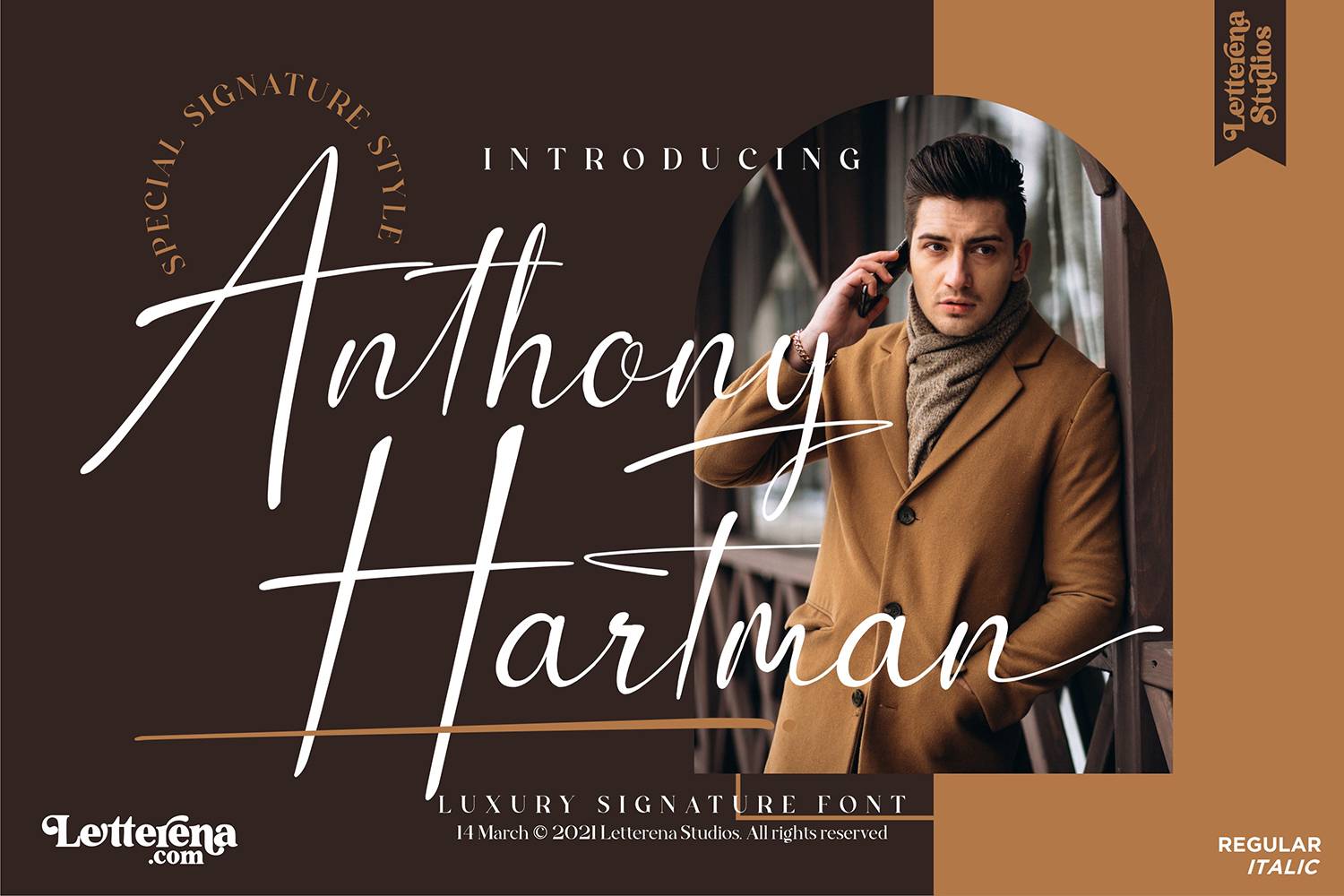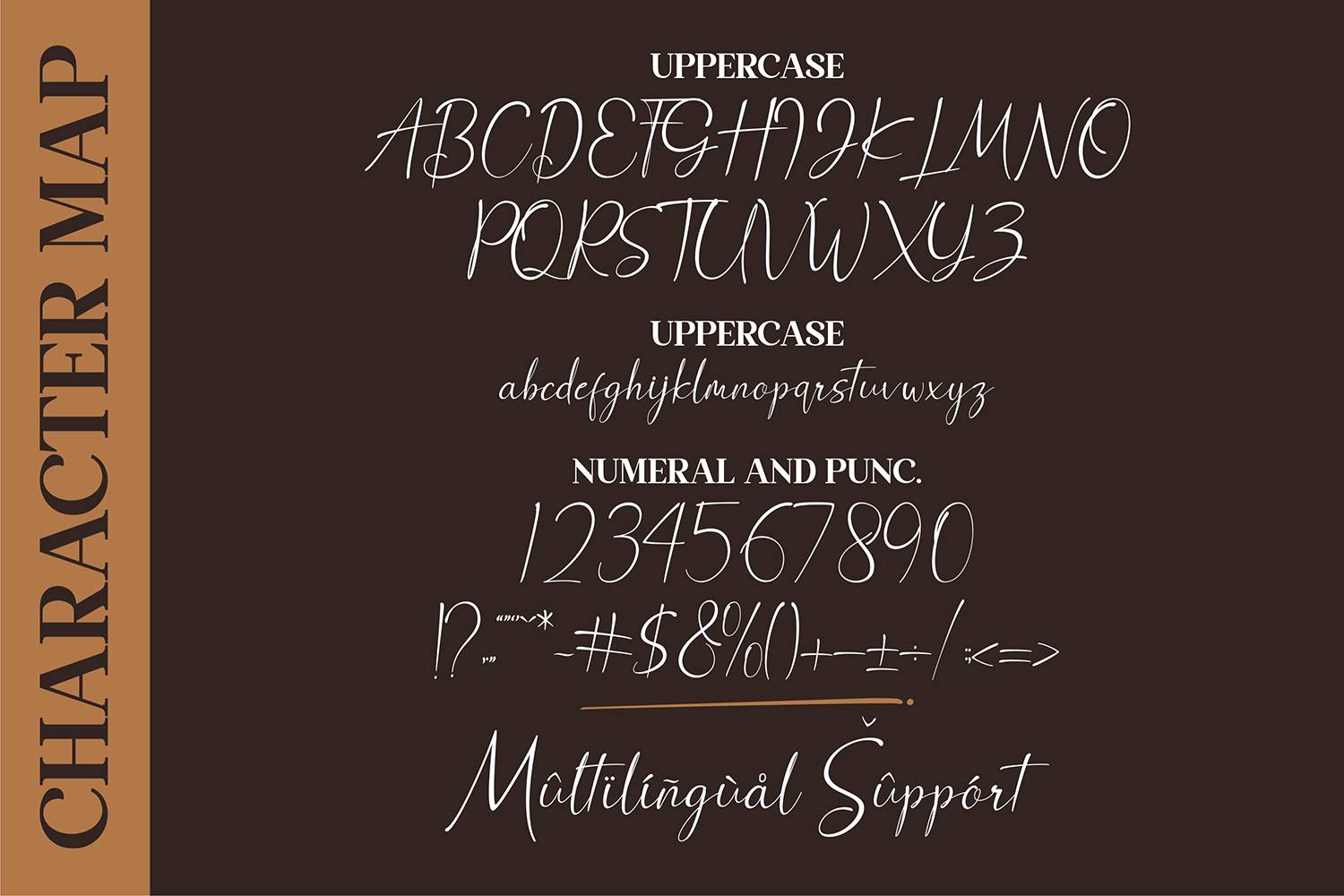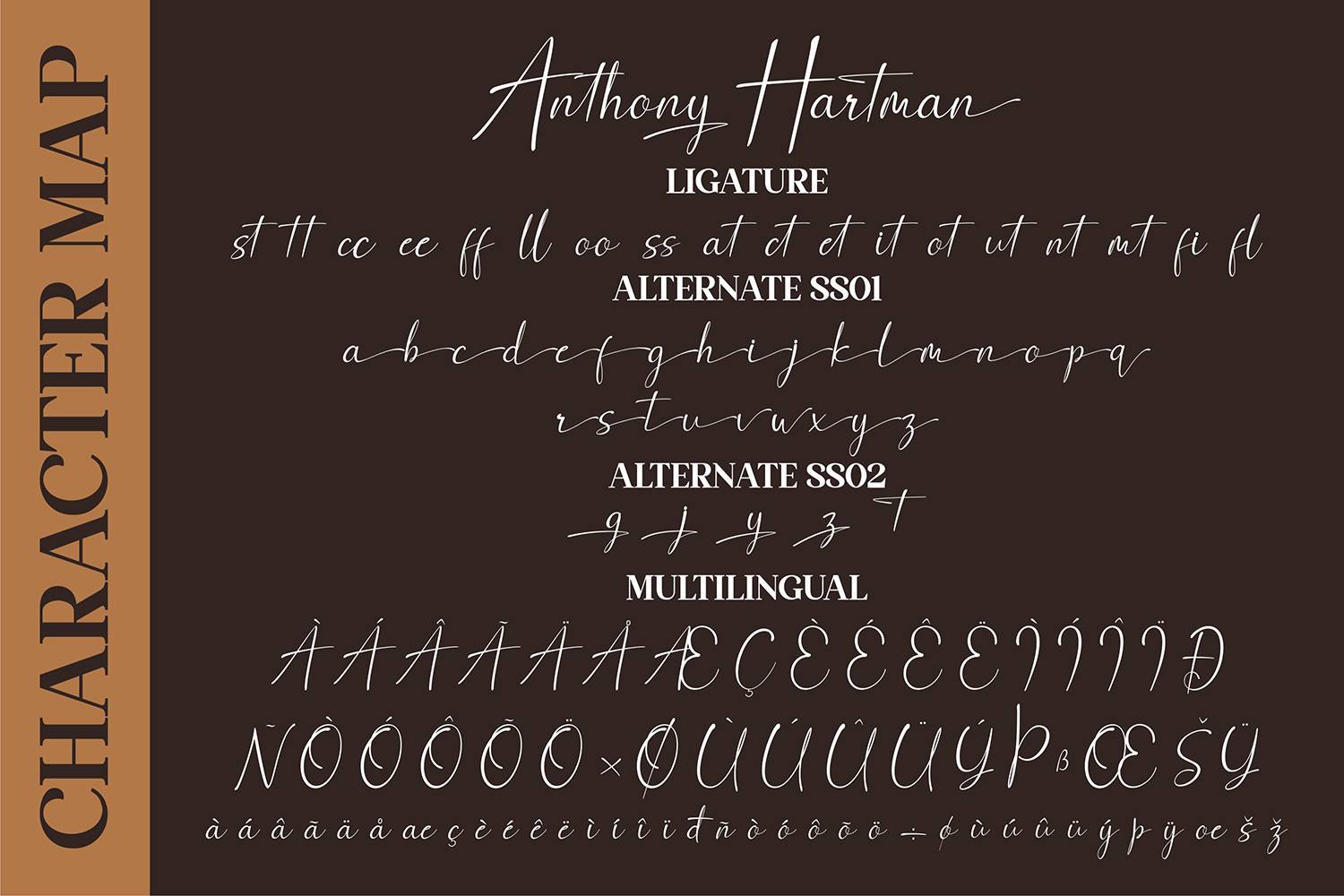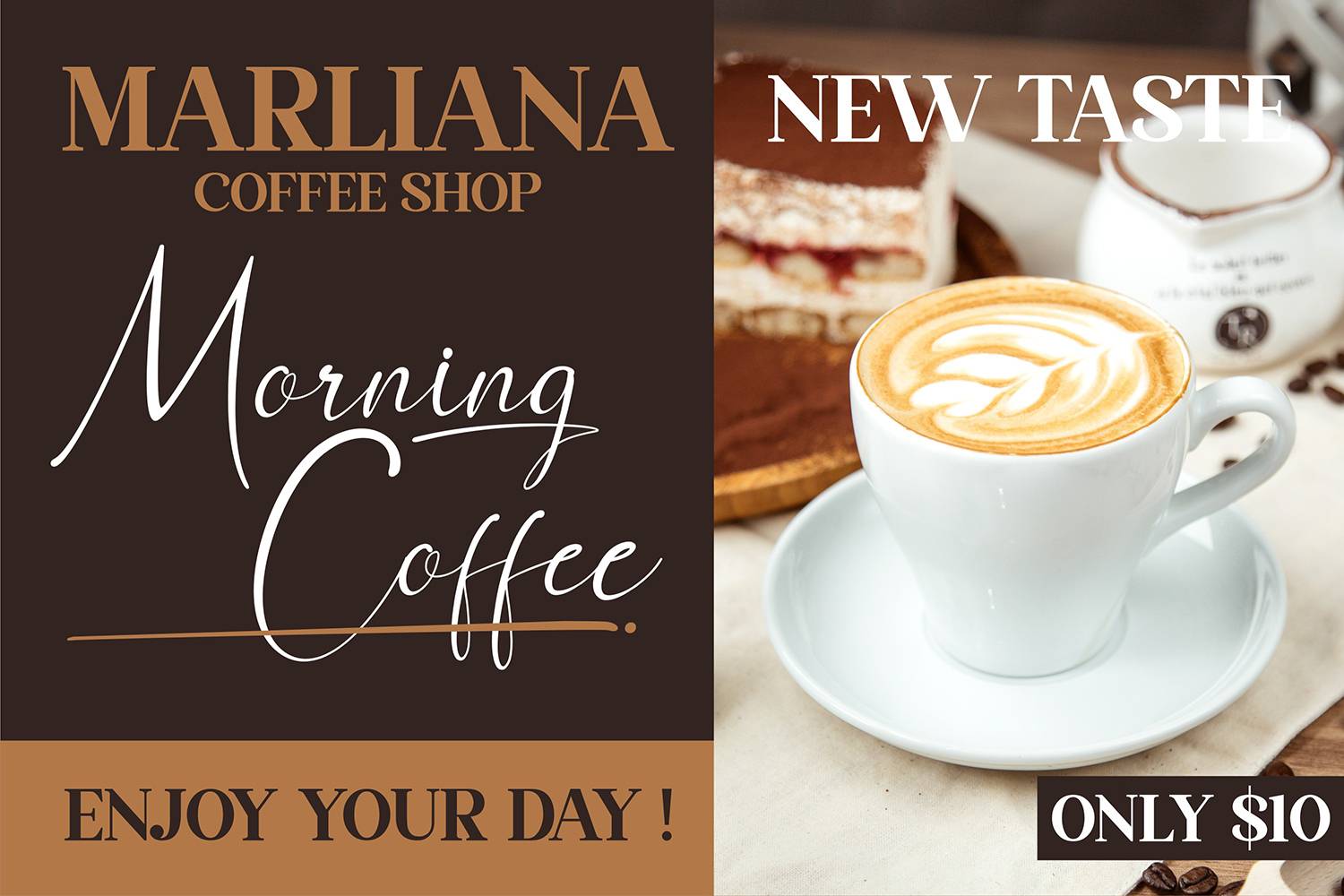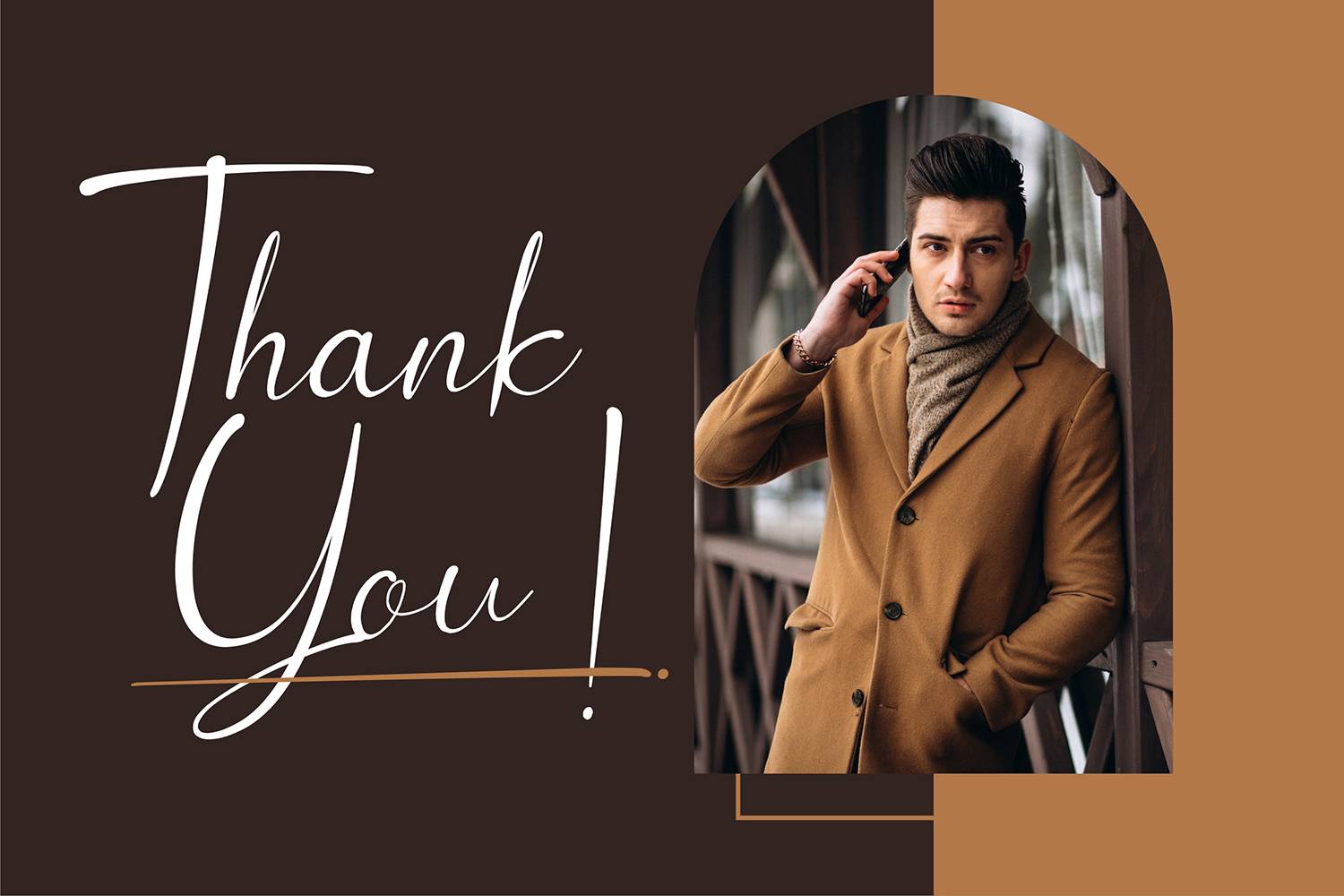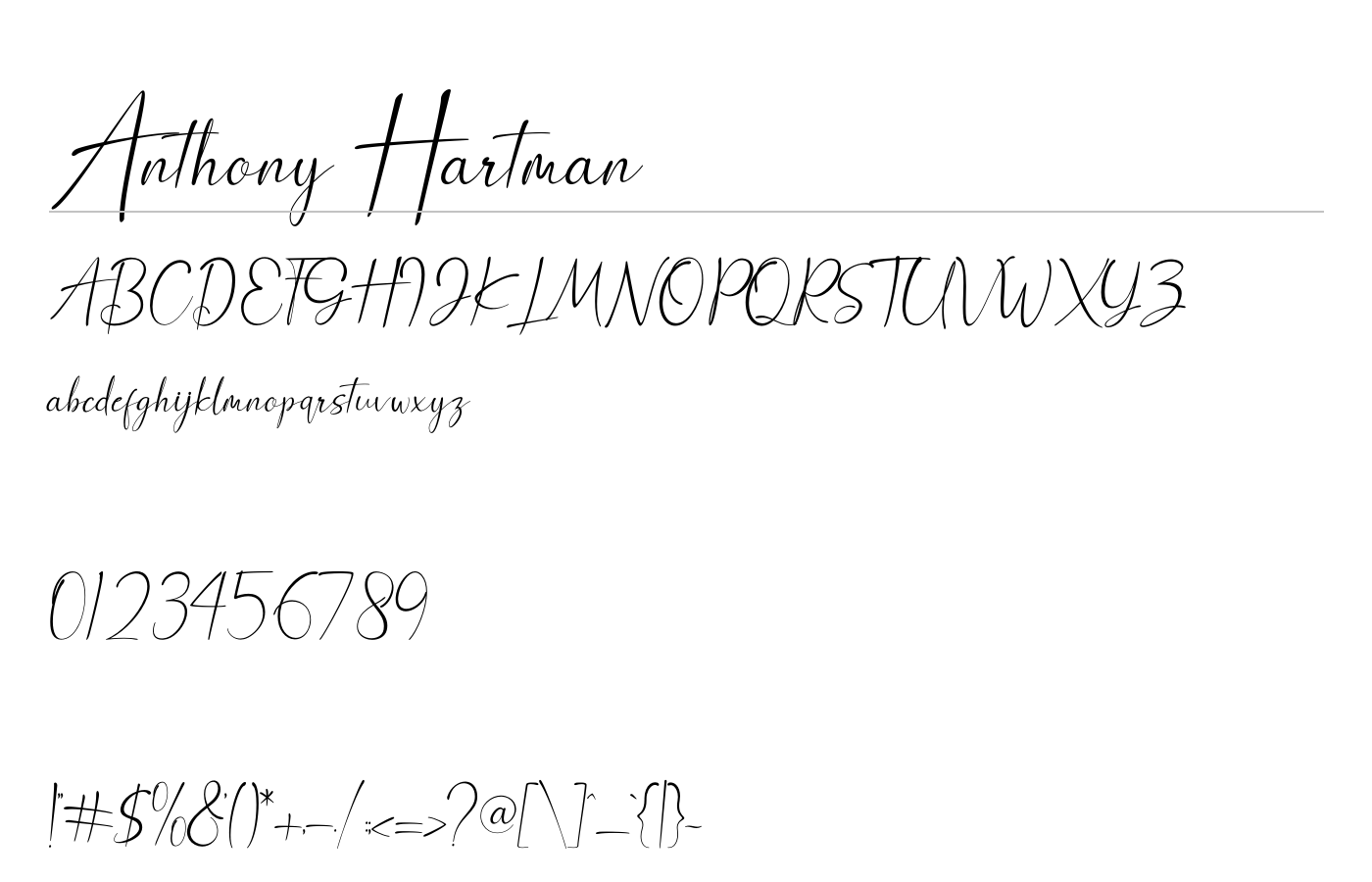
Anthony Hartman is a delicate, elegant script font with a handwritten feel, characterized by its thin strokes and graceful, flowing letterforms. Its tall x-height and slender, slightly irregular lines give it a sophisticated yet approachable style, perfect for adding a personal, refined touch. This font works beautifully for wedding invitations, luxury branding, and stylish editorial designs where a light, airy elegance is desired.
Anthony Hartman Font
About Anthony Hartman Font
| Font family | Anthony Hartman Font |